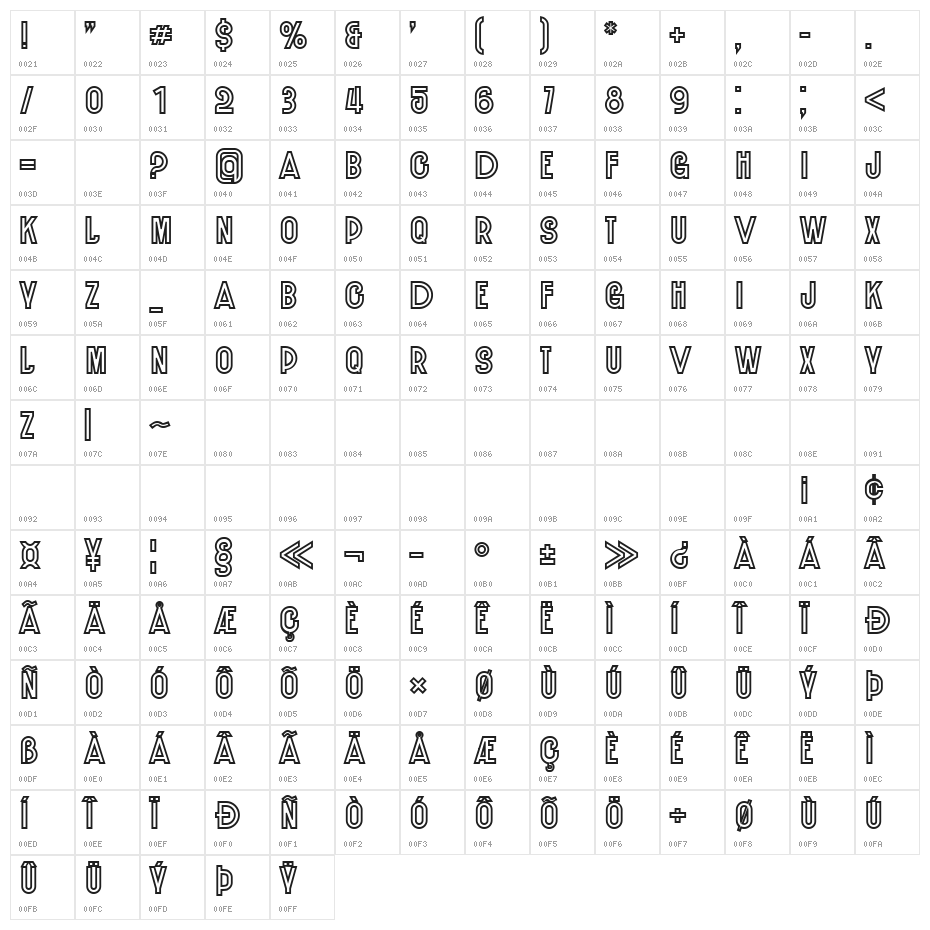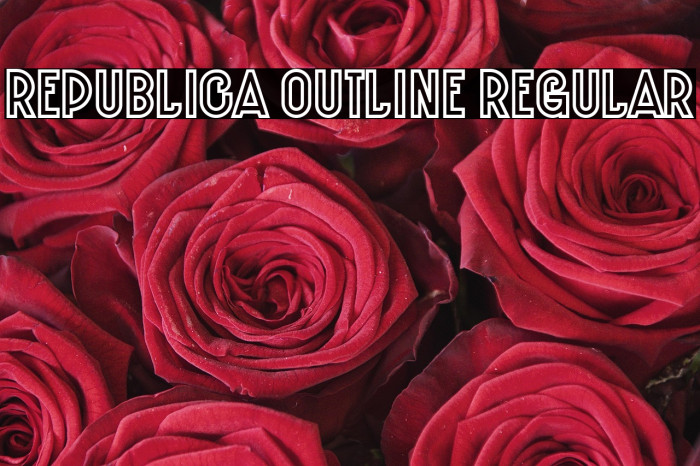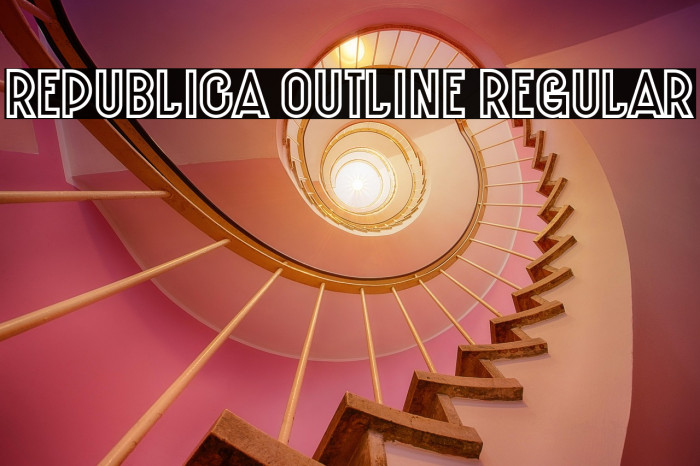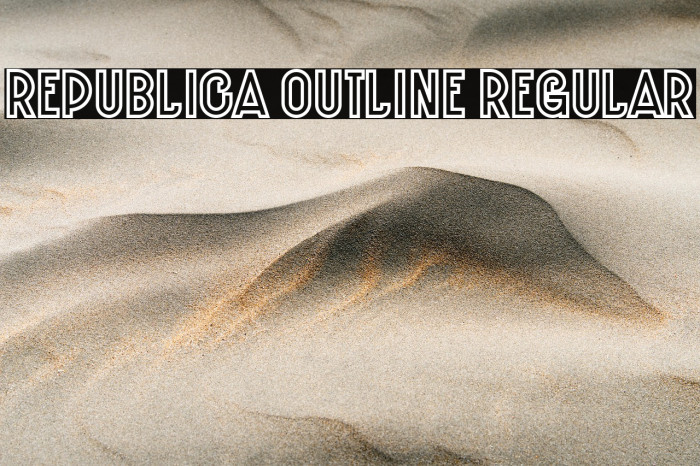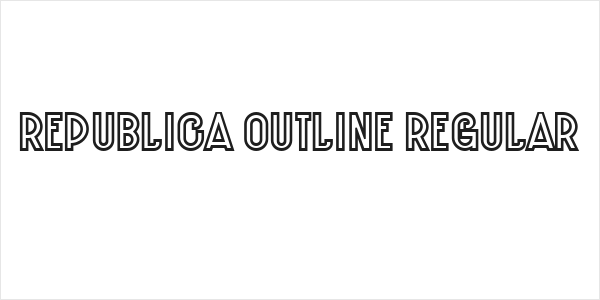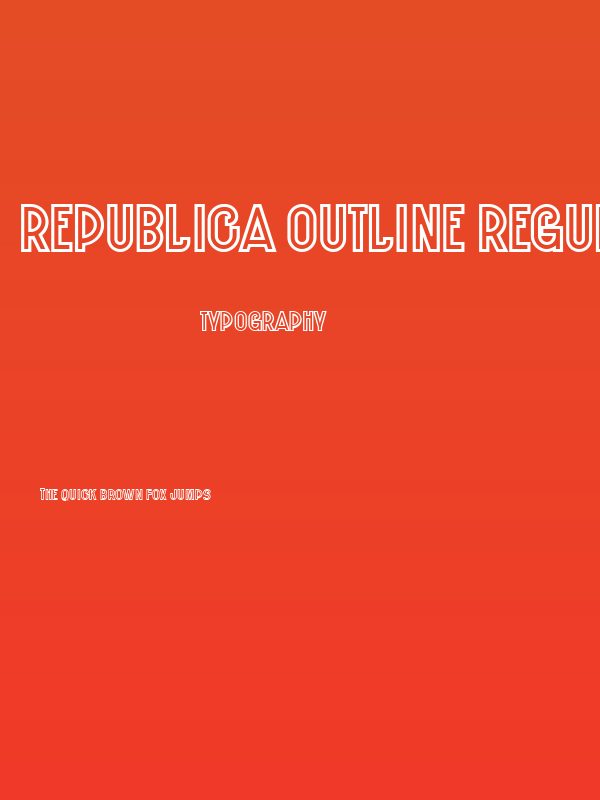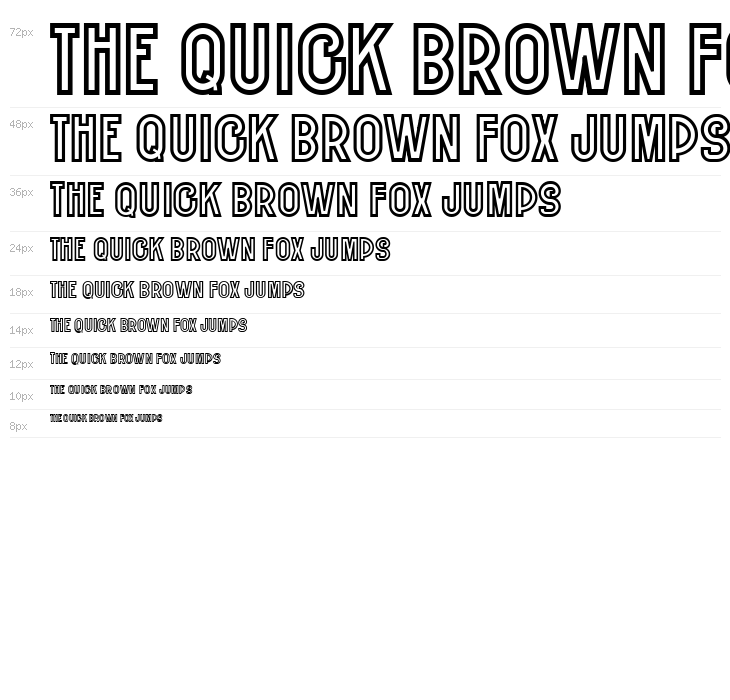
Republica Outline Regular Font
Republica Outline Regular Description
This font features a bold, outlined style that gives it a striking and modern appearance. The characters are uppercase, with a consistent thickness in the outline that creates a sense of uniformity and balance. The design is clean and geometric, with sharp angles and straight lines that enhance its contemporary feel. The spacing between characters is normal, allowing for readability while maintaining its bold presence. This font is ideal for making a statement in headlines or logos, where its unique outline can add a layer of depth and interest.
| Proposed Projects | Ideal for headlines, logos, posters, and branding materials where a bold statement is needed. |